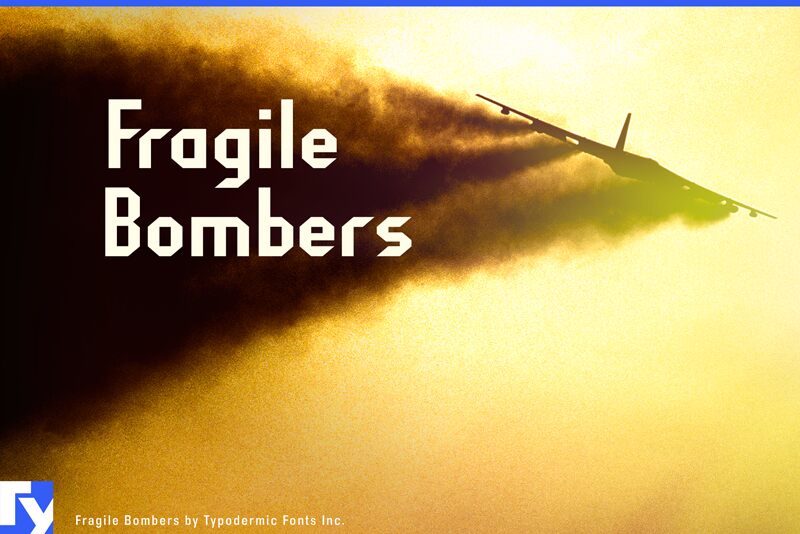
Fragile Bombers Down is a military-themed eroded display typeface designed by Ray Larabie. Its crisp letterforms will instill a sense of technological precision in your message. It comes in Regular and two rusted metal finishes.
Fragile Bombers Down
Ray Larabie